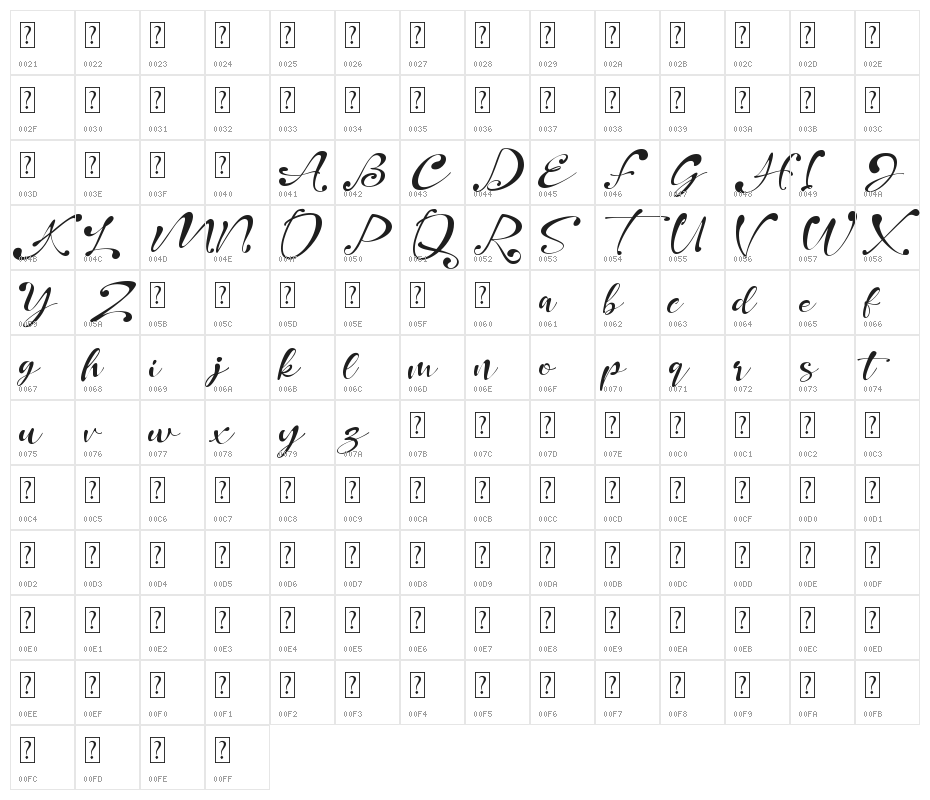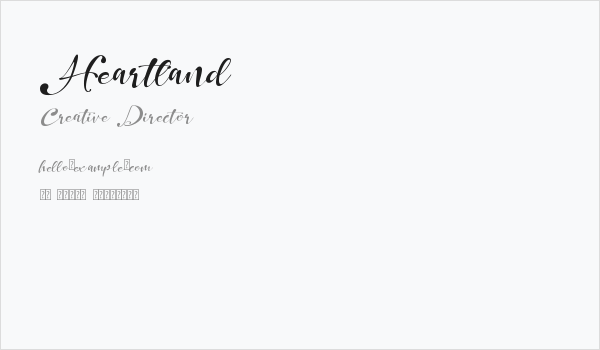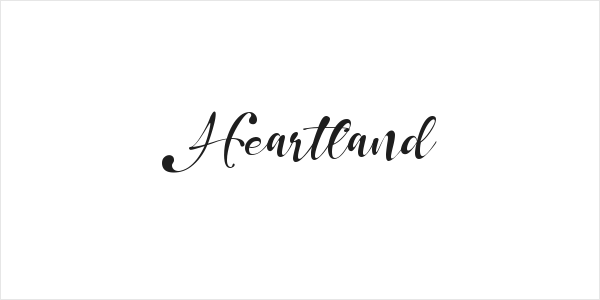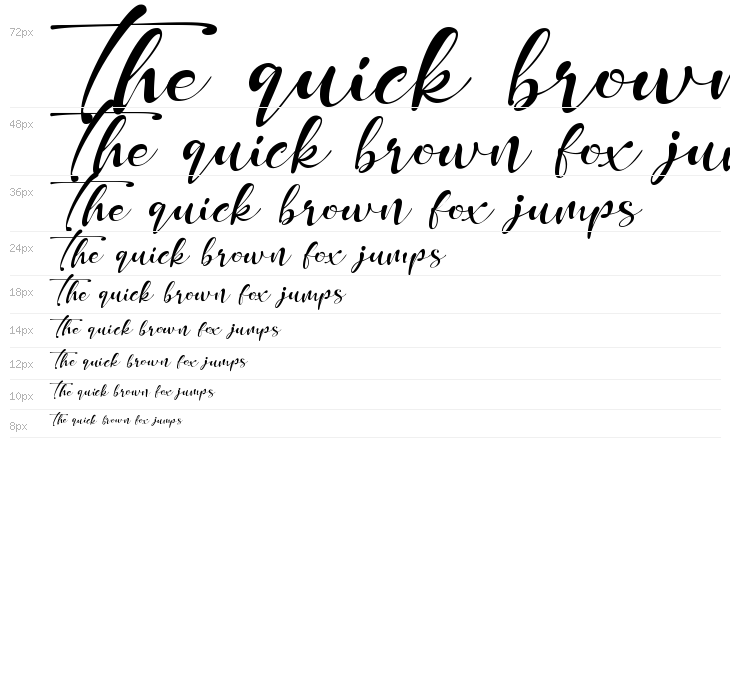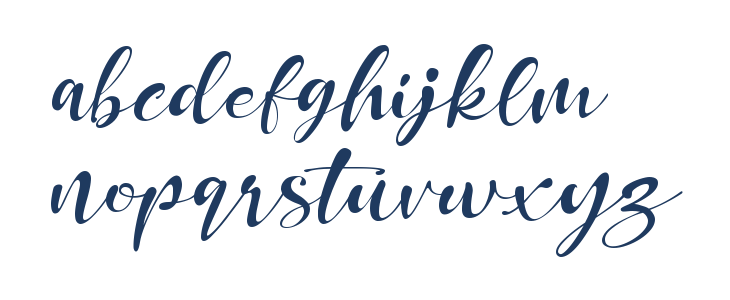
Heartland Font
Heartland Description
This font exudes elegance and sophistication with its flowing, cursive style. The letters are intricately designed with smooth curves and delicate flourishes, giving it a handwritten appearance. The uppercase letters are particularly ornate, featuring loops and swirls that add a touch of grandeur. The lowercase letters maintain a consistent style, with gentle slopes and rounded edges that enhance readability. The font's overall aesthetic is both classic and modern, making it versatile for various design projects. Its unique character shapes and artistic flair make it ideal for creating eye-catching headlines or logos.
| Overall Style | Elegant, Classic |
| Proposed Projects | Ideal for wedding invitations, branding, logos, and elegant packaging designs. |